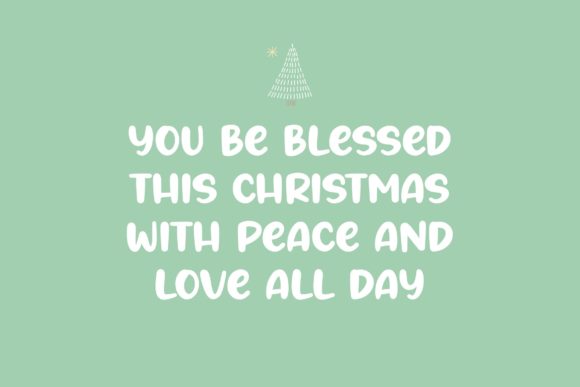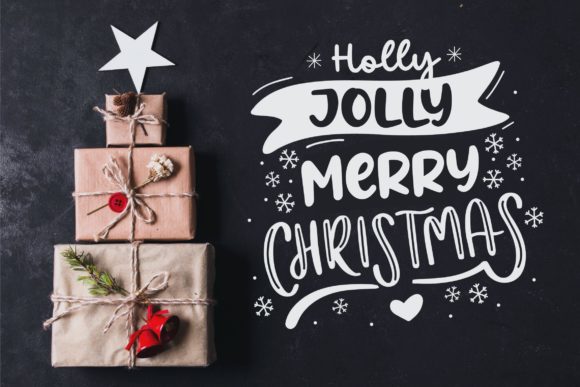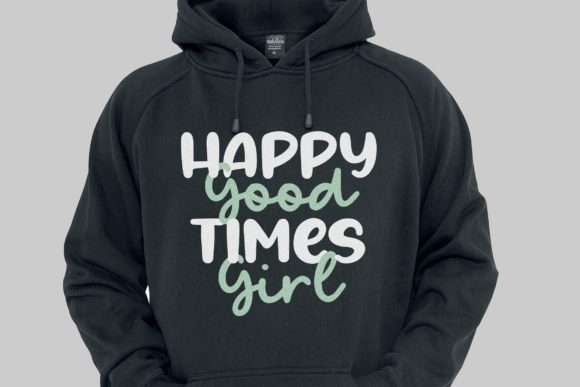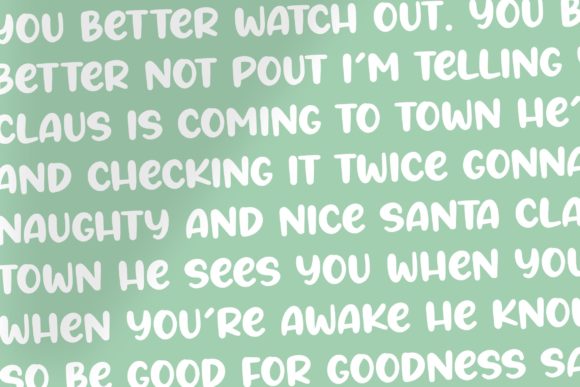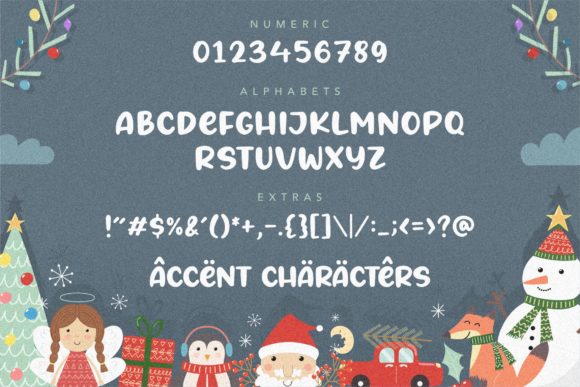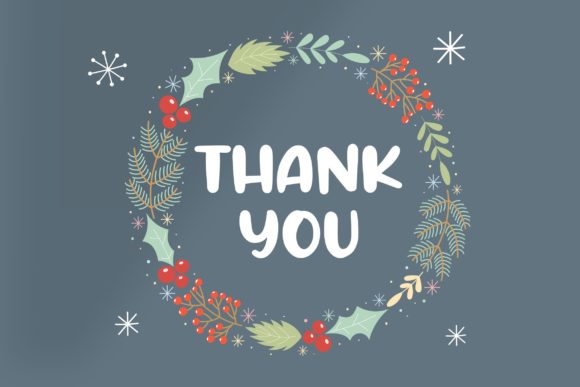
Introducing Angels Cookie Font: The Sweetest Addition to Your Design Collection
Are you a designer, crafter, or DIY enthusiast looking for a font that can add a touch of sweetness and whimsy to your projects? Look no further than Angels Cookie Font, a fun and playful brushed handwritten font that’s perfect for a variety of creative endeavors. In this article, we’ll dive into the features and benefits of Angels Cookie Font, and explore how it can elevate your designs and projects to the next level.
A Font that’s as Sweet as it is Versatile
Angels Cookie Font is a one-of-a-kind brushed handwritten font that’s designed to bring a smile to your face. Its playful, cursive strokes and charming imperfections make it the perfect choice for adding a personal touch to your designs. Whether you’re creating social media graphics, crafting DIY projects, or designing marketing materials, Angels Cookie Font is the perfect companion.
Perfect for Instagram and Social Media
With the rise of visual-centric social media platforms like Instagram, designers and crafters need fonts that can help their content stand out from the crowd. Angels Cookie Font is a great choice for Instagram and other social media platforms, as its playful and eye-catching design is sure to grab attention. Use it to create engaging captions, quotes, and graphics that showcase your personality and style.
Elevate Your DIY Projects with Angels Cookie Font
If you’re a crafter or DIY enthusiast, you know how important it is to add a personal touch to your projects. Angels Cookie Font is the perfect choice for a variety of DIY projects, from scrapbooking and card-making to crafting and woodworking. Use it to add a sweet and playful touch to your project titles, labels, and descriptions.
Features and Benefits of Angels Cookie Font
- Unique and Playful Design: Angels Cookie Font features a one-of-a-kind brushed handwritten design that’s sure to add a touch of whimsy to your projects.
- Easy to Read: Despite its playful design, Angels Cookie Font is easy to read and understand, making it perfect for use in a variety of contexts.
- Highly Versatile: Angels Cookie Font can be used for a wide range of projects, from social media graphics to DIY crafts.
- Brushed Texture: The font’s brushed texture gives it a tactile, hand-crafted feel that’s perfect for adding a personal touch to your projects.
How to Use Angels Cookie Font in Your Projects
Using Angels Cookie Font in your projects is easy. Here are a few tips to get you started:
- Pair it with Other Fonts: Angels Cookie Font pairs well with a variety of other fonts, from bold and modern to playful and scripty.
- Experiment with Colors: The font’s brushed texture looks great in a variety of colors, from bright and bold to soft and pastel.
- Add it to Your Social Media Toolkit: Use Angels Cookie Font to create engaging social media graphics that showcase your personality and style.
Angels Cookie Font is a fun and sweet brushed handwritten font that’s perfect for designers, crafters, and DIY enthusiasts. Its playful and whimsical design makes it a great choice for adding a personal touch to your projects, while its versatility and ease of use make it a valuable addition to your design toolkit. Whether you’re looking for fonts for Instagram or calligraphy scripts for DIY projects, Angels Cookie Font is the perfect choice.